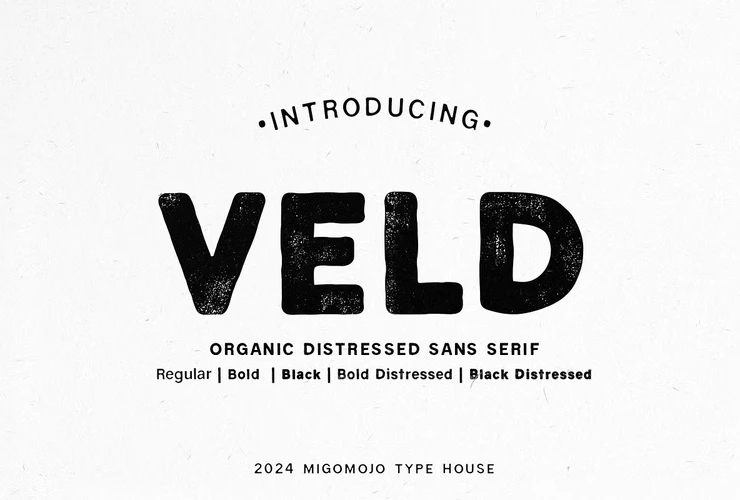
Veld Font Family: A Fusion of Organic Simplicity and Vintage Charm
Veld Font Family is a beautifully crafted sans-serif typeface that merges modern aesthetics with a hint of vintage flair. Designed to add character and warmth to any project, Veld’s organic curves and handcrafted details bring a unique personality to contemporary and retro designs alike.
What’s Inside the Veld Font Family?
The Veld Font Family includes five versatile styles:
Veld Regular: The clean and simple regular style is perfect for a wide range of uses, from branding to editorial work.
Veld Bold: Offering more weight and impact, this version is ideal for headlines and emphasis.
Veld Black: A bolder, heavier version, Veld Black commands attention with its strong presence.
Veld Bold Distressed: This distressed variant adds a gritty, vintage texture, perfect for projects that need an aged or rugged feel.
Veld Black Distressed: The ultimate in bold, weathered style, this option is great for authentic, raw designs.
Why Choose the Veld Font Family?
Veld stands out for its handcrafted feel and versatility, making it a go-to choice for designers who want to bridge the gap between contemporary minimalism and vintage warmth. Whether you’re working on branding, packaging, posters, or web design, Veld’s range of weights and textures offers flexibility while maintaining a cohesive look.
Key Features:
Organic Sans-Serif Style: Handcrafted curves and subtle imperfections give Veld a unique, welcoming appearance.
Three Weights and Two Textures: From clean and modern to gritty and vintage, Veld adapts to diverse design needs.
Perfect for Retro and Modern Projects: Whether you’re creating sleek contemporary visuals or looking for a nostalgic vibe, Veld does it all with elegance.
Where to Use the Veld Font Family?
Veld’s organic design makes it perfect for a wide array of creative projects:
Branding: Add a touch of warmth and personality to your brand’s visual identity.
Posters and Editorial Design: Veld’s bold styles work beautifully for eye-catching headlines and titles.
Packaging Design: The distressed variants lend an authentic, vintage feel to product packaging.
Web Design: The sans-serif simplicity of Veld ensures readability while adding a stylish edge.
For designers looking to create something with a blend of classic charm and modern style, Veld Font Family offers the perfect balance between both worlds.